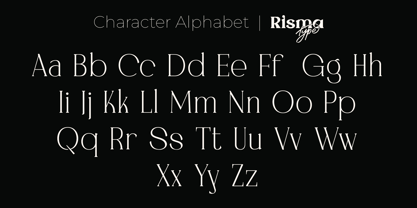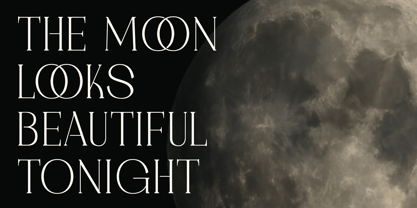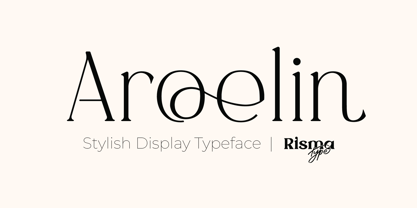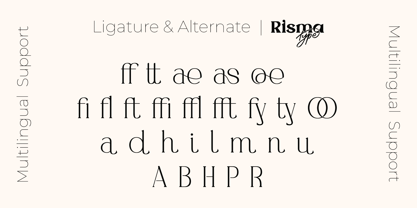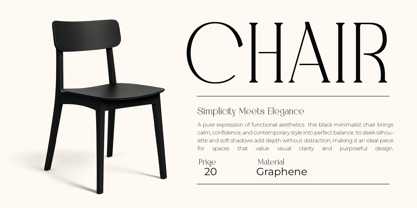
Aroelin
by Risma Type
The Aroelin Font Family was designed by Risma Mulyasari and published by Risma Type. Aroelin contains 2 styles and family package options.
Aroelin – Stylish Display Typeface with Distinctive Elegance
Aroelin is a stylish display typeface designed to captivate with charm and sophistication. Blending graceful curves with sharp, refined edges, Aroelin stands out as a modern classic—perfect for designers seeking a high-impact typeface with personality and flair. From fashion editorials to luxury branding, Aroelin brings visual poetry to every project.
Thoughtfully crafted to balance expressiveness with clarity, Aroelin elevates any composition with its artistic form and stylistic versatility. Whether used in headlines, packaging, or digital campaigns, this typeface exudes confidence, creativity, and timeless style.
Key Features
• Stylish and expressive display letterforms
• Available in multiple weights and alternates for creative freedom
• Ideal for branding, editorial, packaging, and high-end design
• Supports multiple languages for global use
• Designed for impactful, refined typography
Aroelin brings personality and polish into perfect harmony—delivering a typeface that speaks boldly, beautifully, and with unmistakable style.